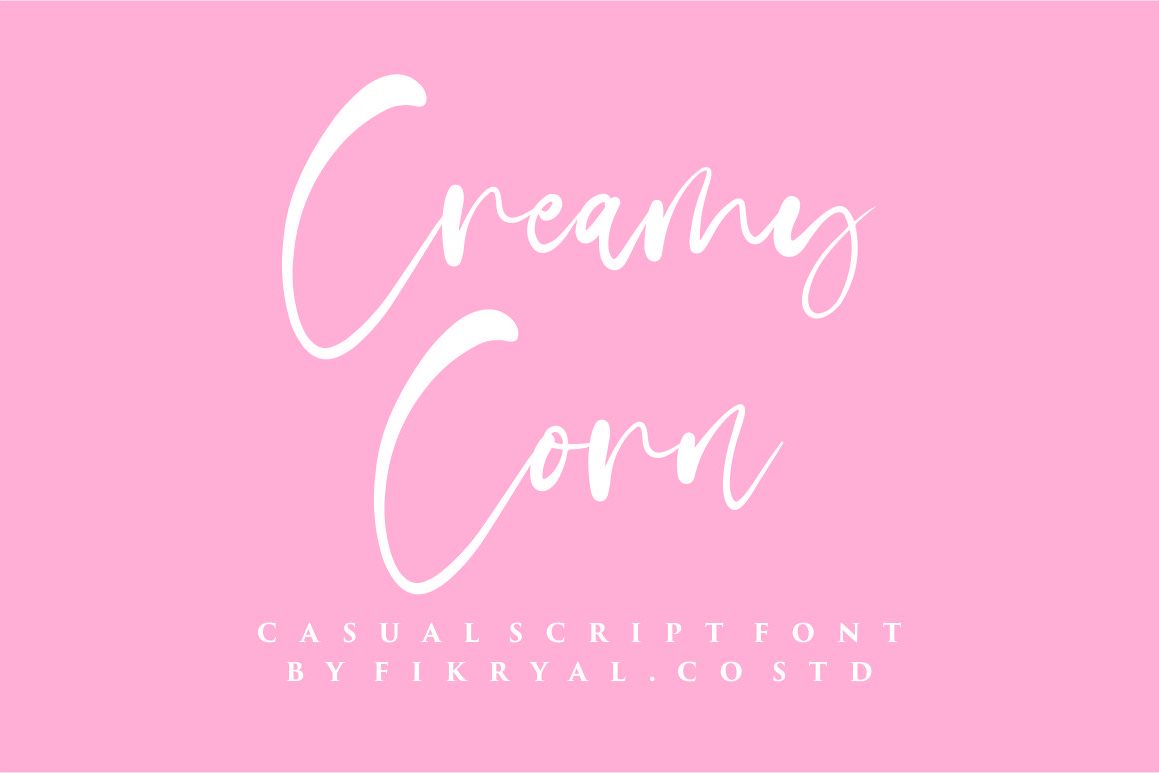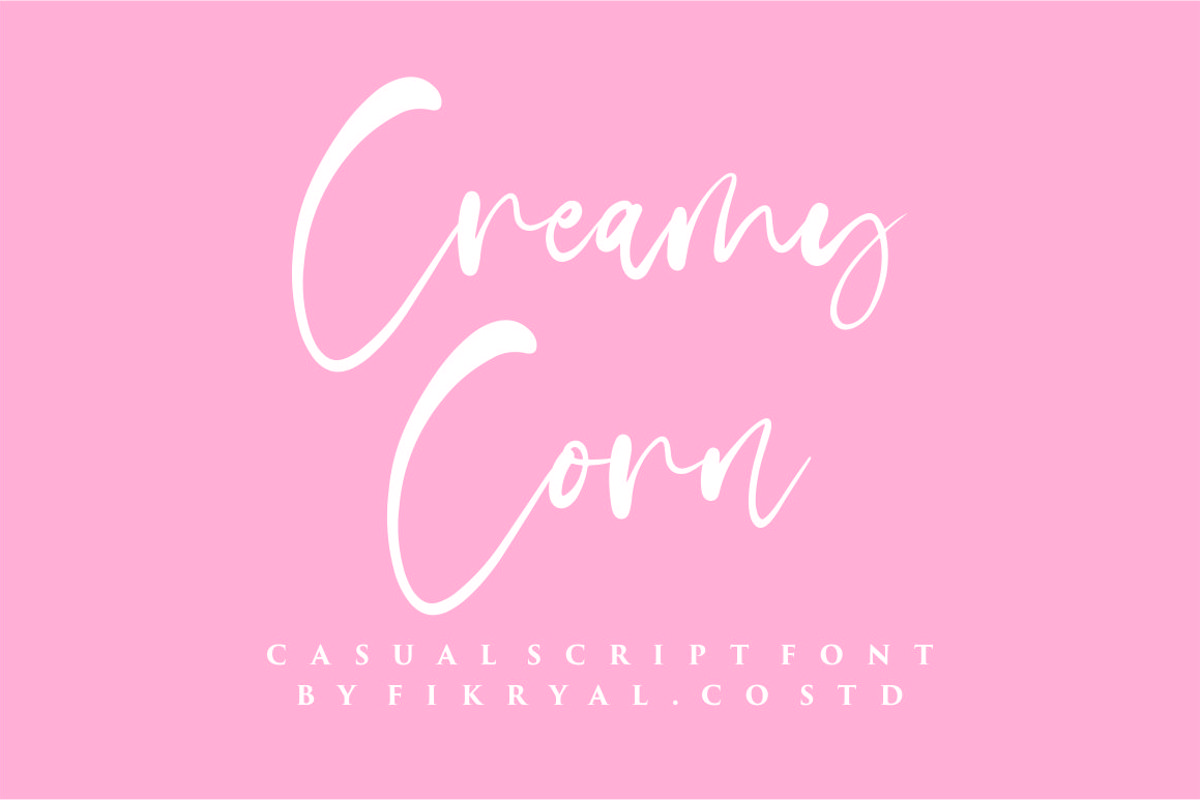
Creamy Corn
Creamy Corn - Script  Font  is a new modern
& stylish handwritten font. I'ts Perfect for logo,branding,
invitation, tittle, wedding designs, social media posts, advertisements,
product packaging, product designs, label, photography, watermark,